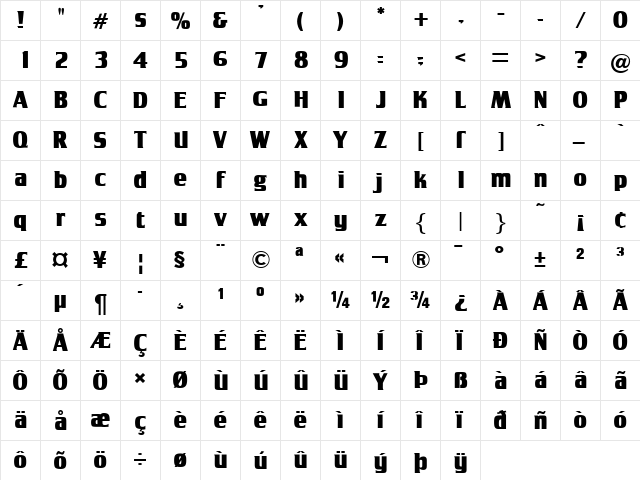
Tobago Poster Alternate Regular
Design Context for Tobago Poster Alternate Typeface
Tobago Poster Alternate takes a measured approach to typography — its balanced proportions and neutral character make it a reliable workhorse for both digital and print work.